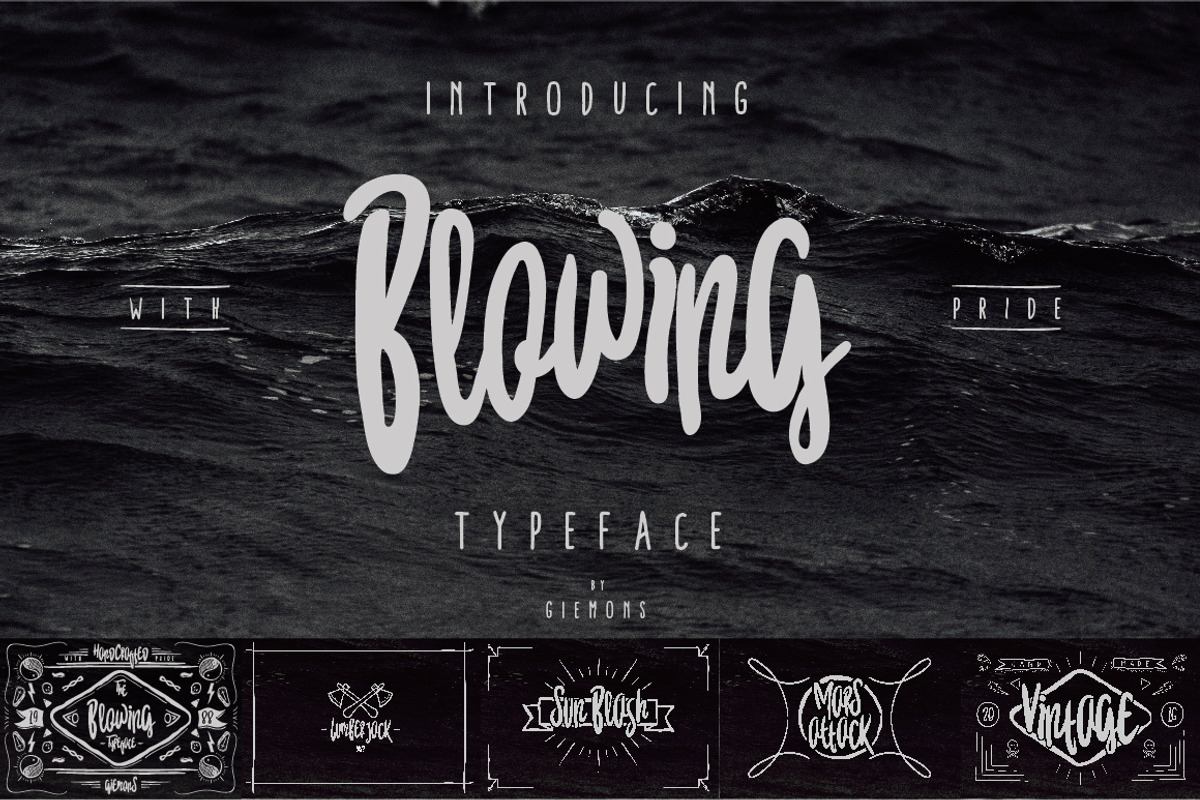
Blowing Typeface Free Download
Blowing Typeface Free Download is a whimsical and elegant script font that flows effortlessly like a gentle breeze. With its handcrafted look and smooth curves, Blowing is perfect for wedding invitations, social media graphics, feminine branding, greeting cards, and lifestyle blogs that need a soft, graceful touch.
Its natural movement and stylish letterforms add a personal, artistic flair to any project. Blowing comes with ligatures, stylistic alternates, multilingual support, and works flawlessly on both Mac and Windows platforms.